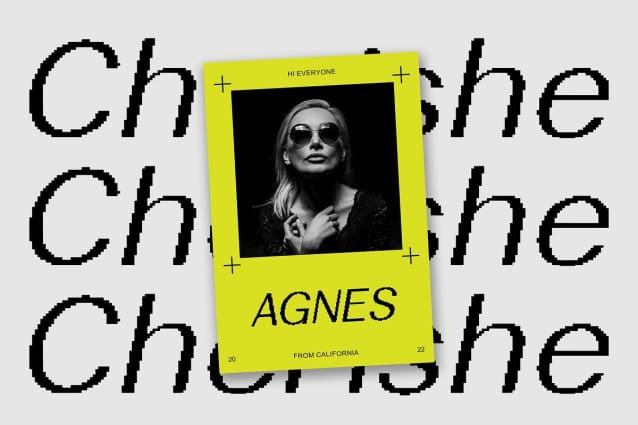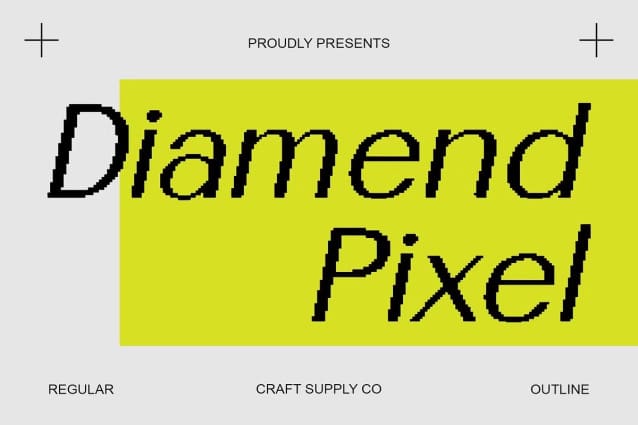
Diamend Pixel Font
Diamend Pixel Font is a modern sans serif font that seamlessly blends elegance, modernity, and a pixelated vibe. Perfect for creating eye-catching displays, this font adds a sophisticated yet contemporary touch to your designs.
With its sleek lines and unique pixel effect, Diamend Pixel offers a fresh take on traditional sans serif fonts. The elegant design and digital flair create a captivating and dynamic look, ideal for posters, digital media, and other projects that need a striking and modern appeal.
Whether you’re designing a flyer for a tech event or creating packaging for an innovative product, Diamend Pixel is sure to make a statement. Its elegant design and pixel effect make it perfect for displays that demand attention and convey a sense of digital sophistication.
Despite its distinctive appearance, Diamend Pixel is versatile and easy to use. The font works well in both large and small sizes, making it suitable for a variety of applications, from headlines and banners to logos and more. With its blend of elegant sans serif design and pixel vibe, Diamend Pixel adds a captivating and modern touch to any design.